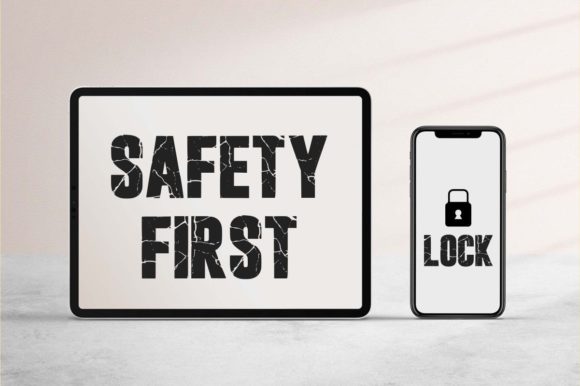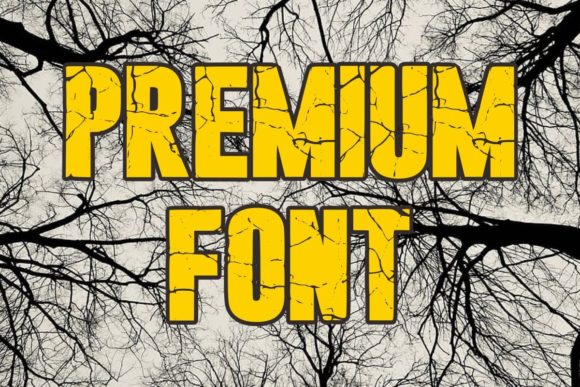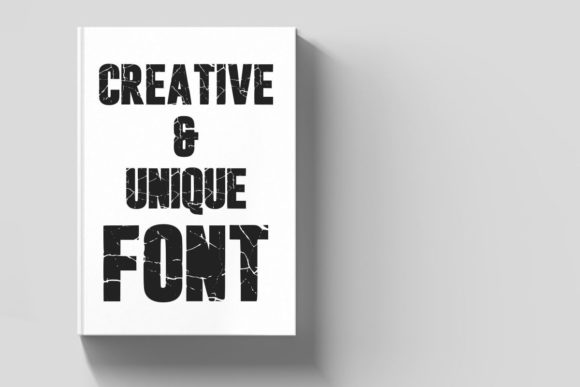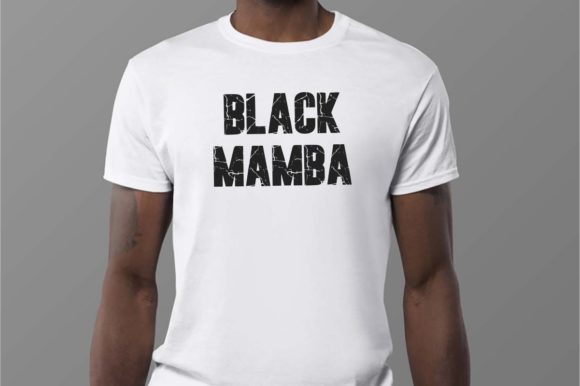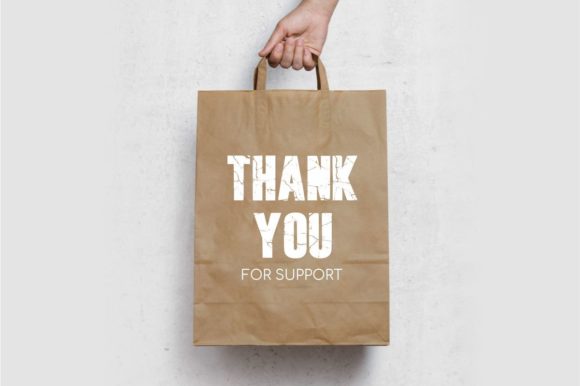
Introduction to Cracked Bold Font
Cracked Bold is a thick lettered and assertive display font.
It conveys an aesthetic meaning and it is easy to read Whether youโre using it for crafts, digital designs, or presentations, this font is a great choice.
Key Features of Cracked Bold Font
Why Choose Cracked Bold Font?
Cracked Bold Font offers exceptional quality and versatility, making it a valuable addition to your design toolkit. Whether you’re creating for personal projects or commercial use, Cracked Bold Font delivers professional results.